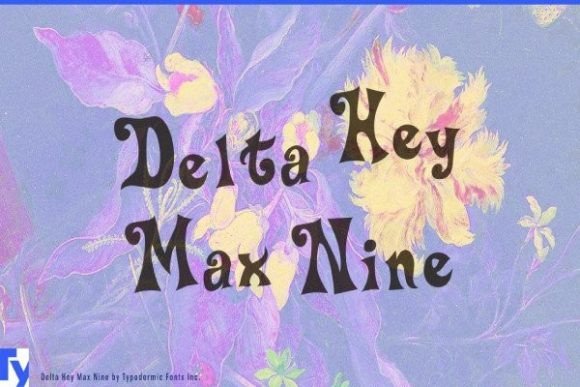
Delta Hey Max Nine, Experimental Display Lettering
Delta Hey Max Nine is a retro‑curly display font that offers a fun, whimsical character — with its playful curves and vintage‑style letterforms, it brings a nostalgic yet friendly charm to any design. It works especially well for projects that need personality and a lighthearted tone, from branding and packaging to posters, apparel, and kids‑themed graphics. Whether you are creating print or digital designs, Delta Hey Max Nine adds a distinctive, retro‑display personality to your text.
- Full character set: uppercase letters, lowercase (if included), numbers, punctuation, and typical Latin glyphs
| Style / Vibe | Retro‑curly, fun, quirky, vintage display | Modern, minimal sans‑serif, neutral vibe | Classic retro display, more formal or decorative |